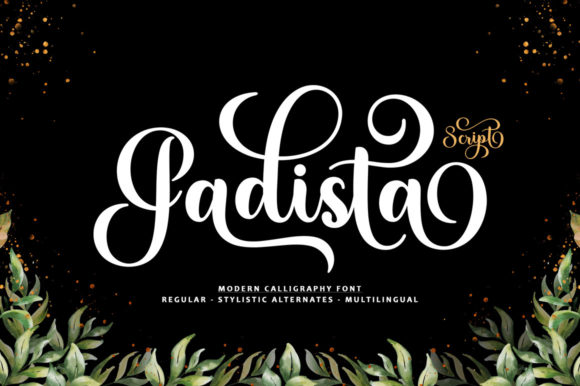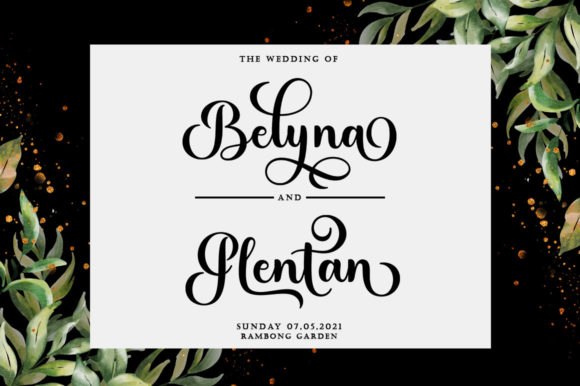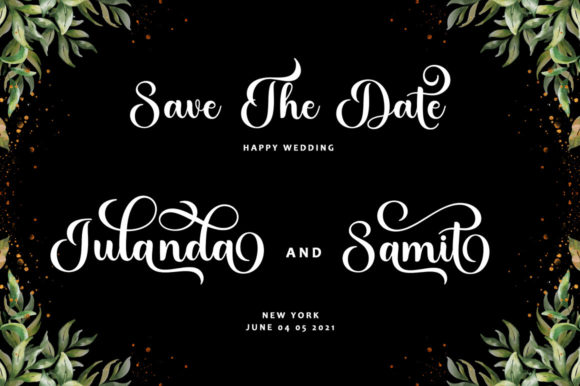
About Gadista Script Font
Gadista Script is a stylish and elegant script font that adds a touch of sophistication to any design. Its graceful and flowing letterforms make it a perfect choice for wedding invitations, thank you cards, quotes, greeting cards, logos, business cards, and other designs that require a handwritten touch.
With its refined and classy appearance, Gadista Script is particularly well-suited for elegant and upscale projects. Whether you’re designing for a wedding, a special event, or a luxury brand, this font will elevate your designs and make them stand out.
The PUA encoding of Gadista Script allows for easy access to all of its glyphs and swashes. This means you can effortlessly customize your designs and create unique compositions by using the alternate characters, ligatures, and decorative elements available in the font. The versatility of these additional glyphs and swashes gives you the freedom to create personalized and visually appealing designs.
Gadista Script’s elegance and versatility make it a valuable asset for any designer. Its beautiful curves and precise details bring a touch of sophistication to your projects. Whether you’re aiming for a romantic and whimsical look or a refined and polished aesthetic, Gadista Script can adapt to your creative vision.
When used in wedding invitations, Gadista Script adds a sense of romance and charm, setting the perfect tone for the special day. It also enhances thank you cards and greeting cards, conveying heartfelt messages with a touch of elegance. In logo and branding designs, Gadista Script creates a distinctive and memorable identity, instantly capturing attention and leaving a lasting impression.
Additionally, Gadista Script can be used effectively in various digital and print materials, such as social media graphics, quotes, posters, and more. Its stylish and elegant appearance ensures that your messages are conveyed with grace and sophistication.
In summary, Gadista Script is a stylish and elegant script font that exudes sophistication and charm. Its PUA encoding allows for easy access to a wide range of glyphs and swashes, providing you with the tools to create unique and personalized designs. Whether you’re designing for weddings, branding, or other projects, Gadista Script will add a touch of elegance and make your designs truly stand out.